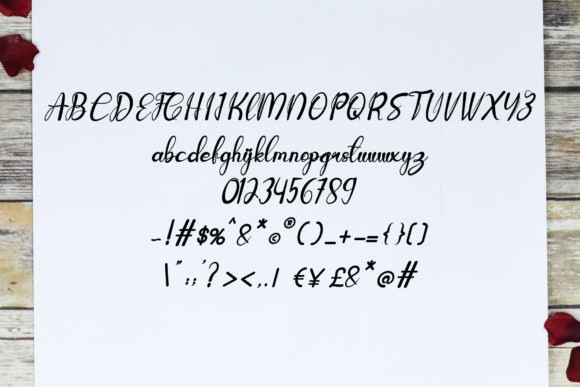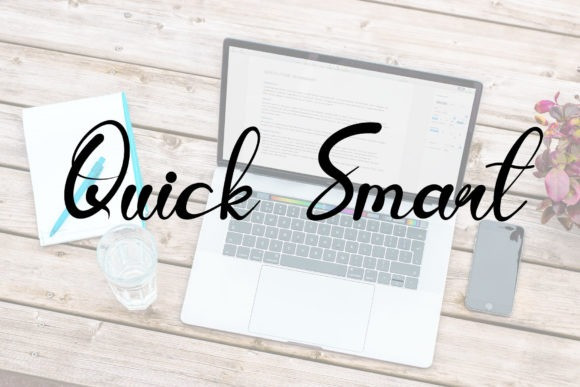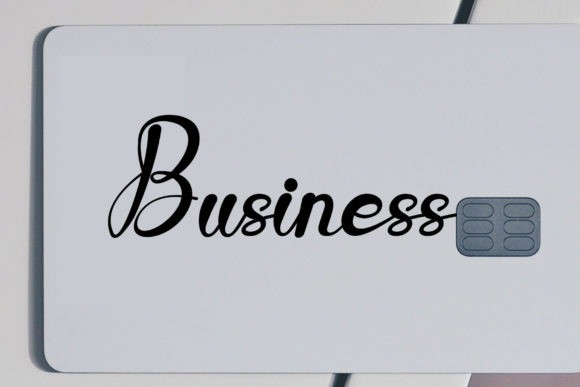
Business Font
Business Font is an elegant and dainty handwritten font that features sweet and delicate swashes. This original look will appeal to a wide range of crafty ideas, from letterheads and titles, to stationery.